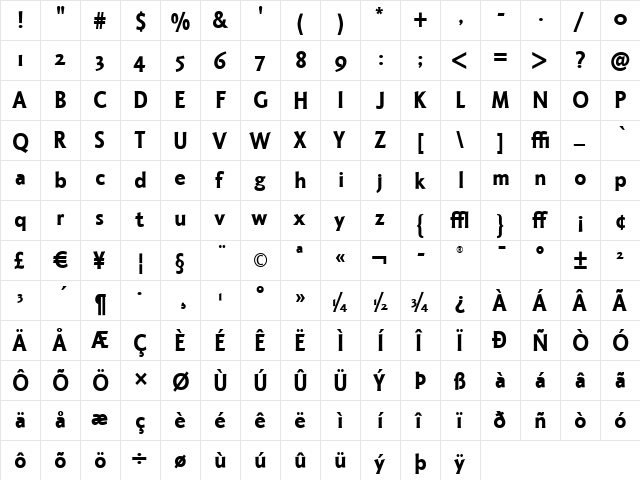
Octone ITC Bold
| Foundry | International Typeface Corporation |
Design Context for Octone ITC Typeface
Octone ITC offers clean, dependable letterforms without strong stylistic allegiance, making it a practical choice for designers who need flexibility. Its bold stroke weight gives it real presence on the page.